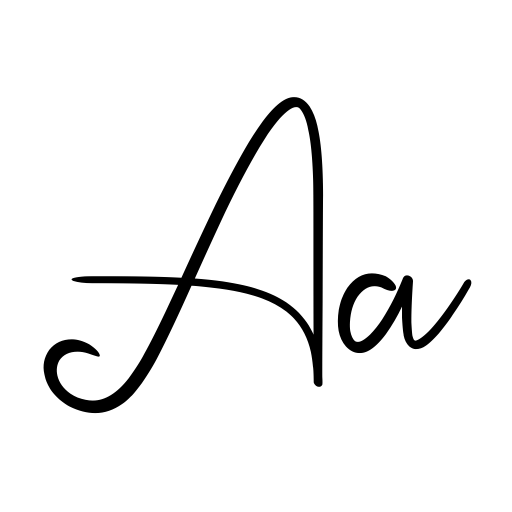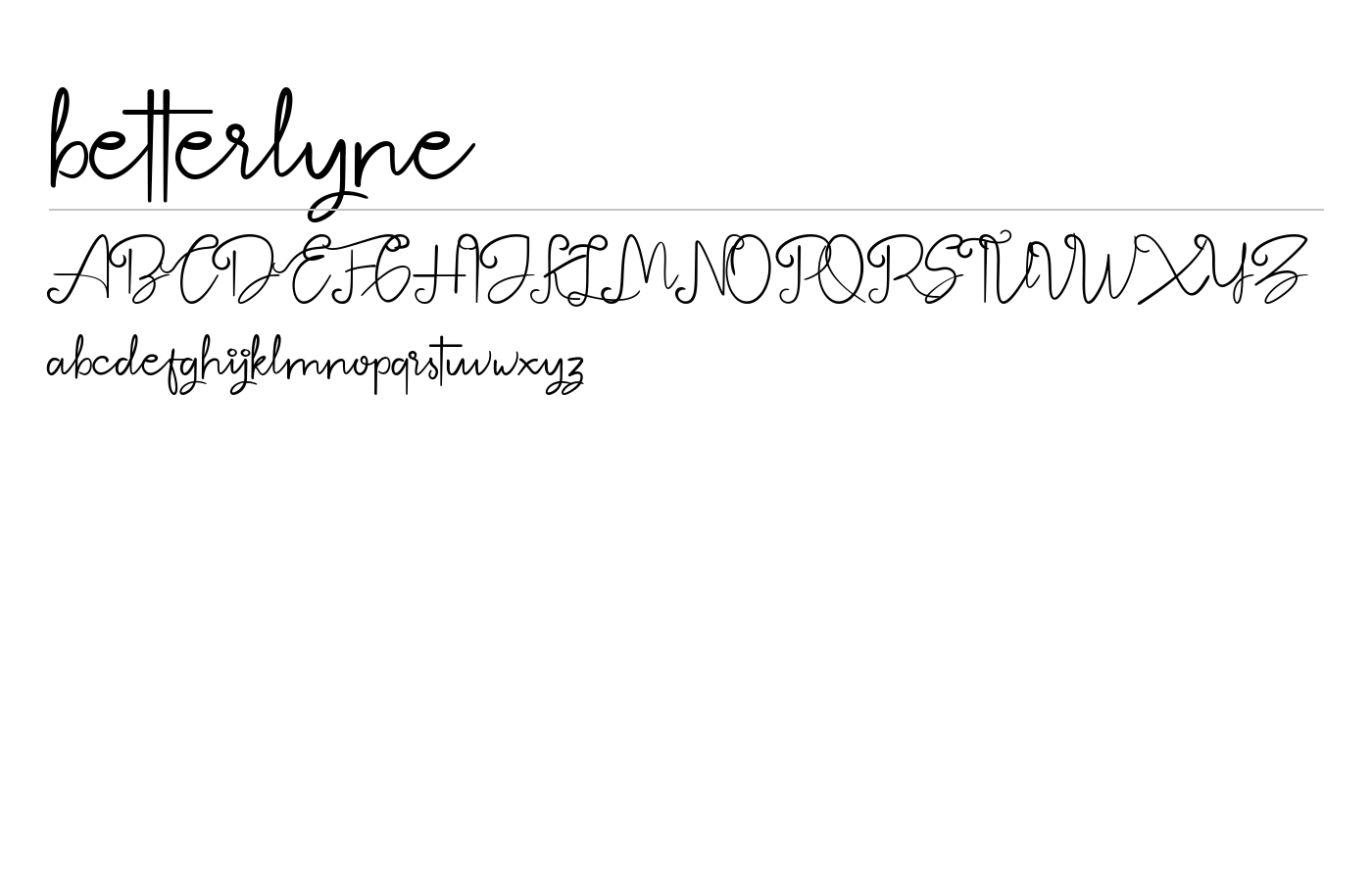
Betterlyne is a delicate, handwritten script font featuring thin, flowing lines with playful and elegant loops, especially in its uppercase letters. Its light weight and tall, narrow letterforms give it a refined and modern feel, making it ideal for creative branding, invitations, and feminine or whimsical design projects that seek a personal, handwritten touch.
betterlyne Font
About betterlyne Font